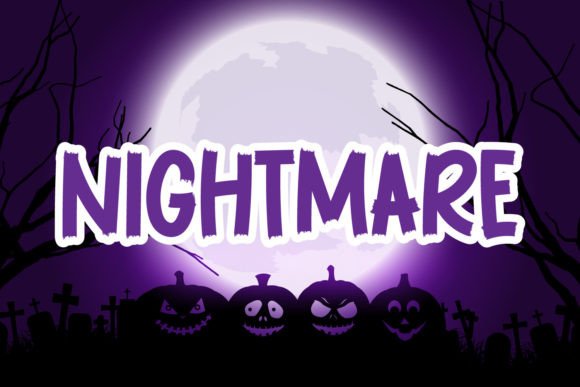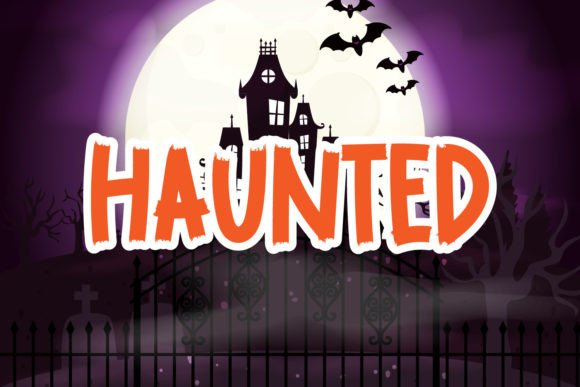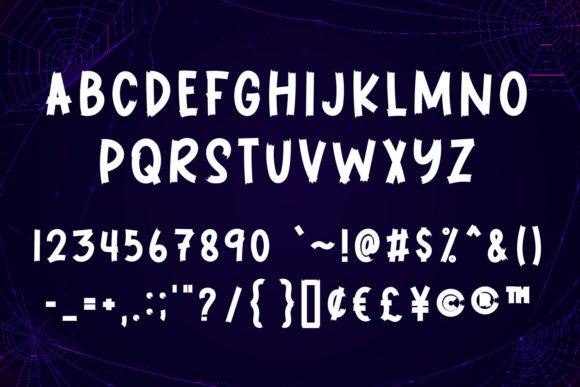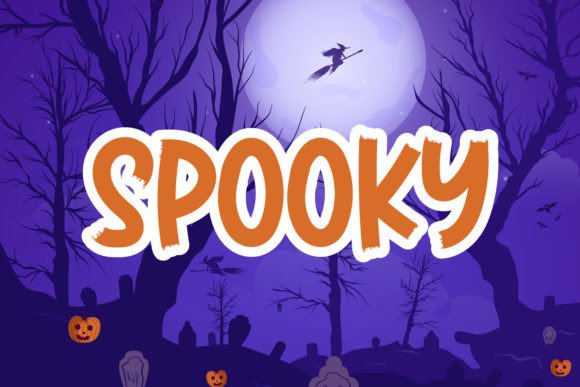
Introduction to Horror Font
Horror is a bold, unique and incredibly cool halloween display font.
It works on a variety of design ideas related to Halloween, or any other scary project idea .